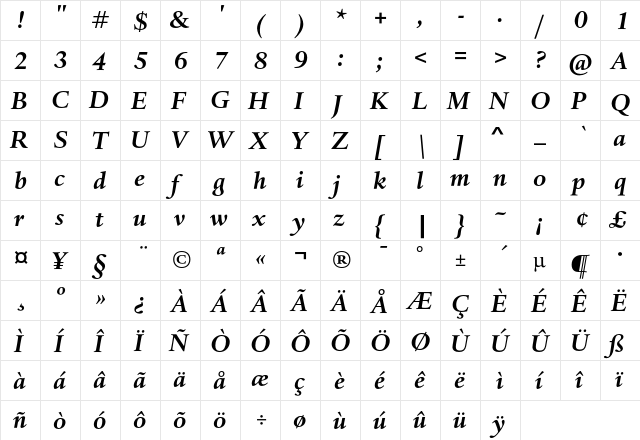
DTL Haarlemmer D Bold Italic
Design Context for DTL Haarlemmer Typeface
DTL Haarlemmer is a composed and adaptable typeface that performs quietly and consistently across a wide range of design contexts. Its italic angle brings a sense of urgency and motion to the letterforms. Its bold stroke weight gives it real presence on the page.
Pro Tip: Use DTL Haarlemmer for emphasis, pull quotes, and subheadings where its slanted energy can add rhythm to the layout.